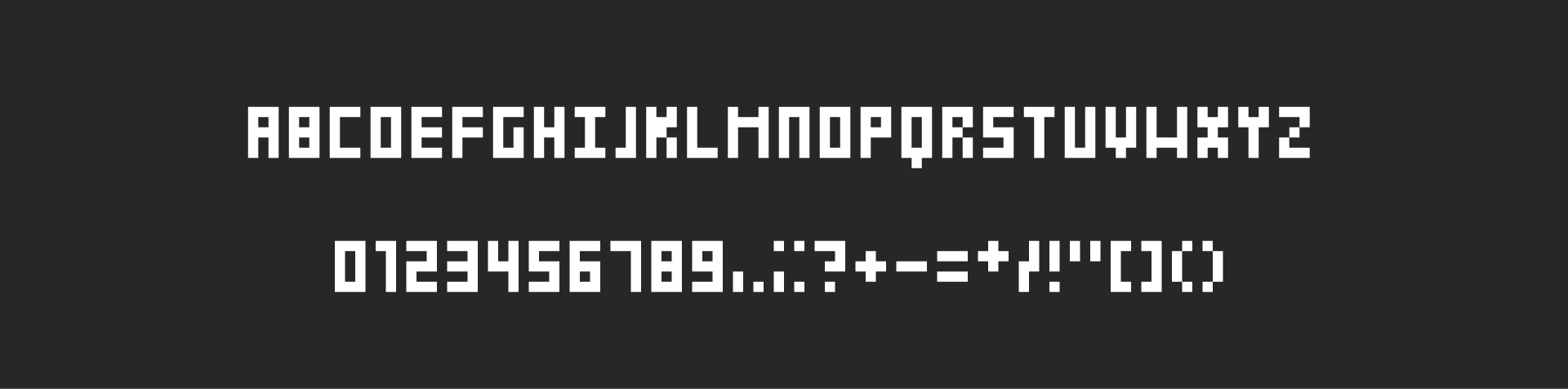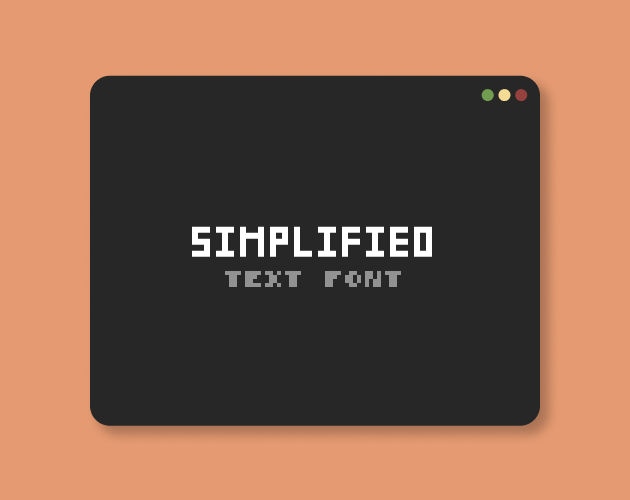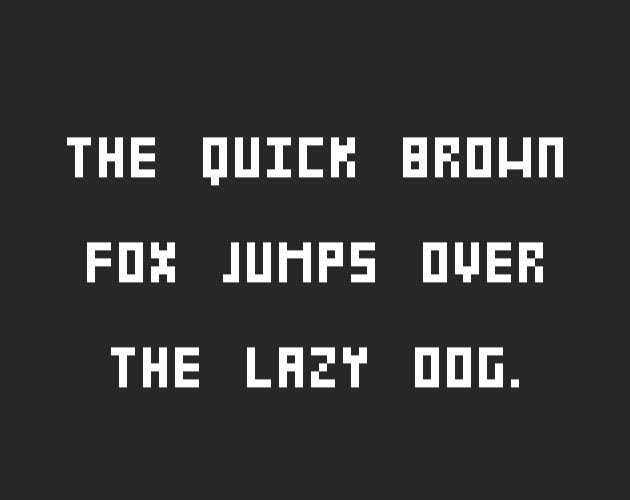
Pixel Font - SIMPLIFIED
SIMPLIFIED is a 7px tall pixel font!
Suggested size: 5pt, 10pt, 15pt, etc.
Full Character Set:
ABCDEFGHIJKLMNOPQRSTUVWXYZ
0123456789,.;:?+-=*/!"[]()